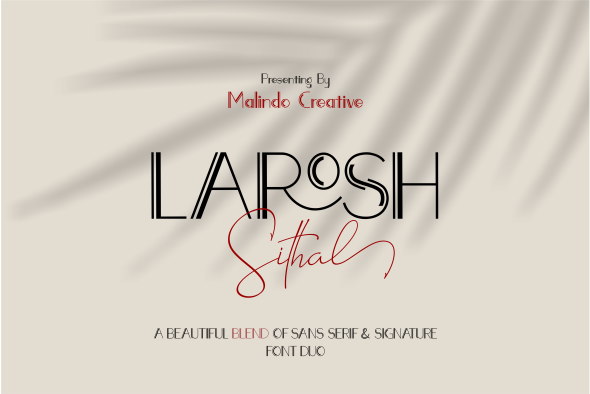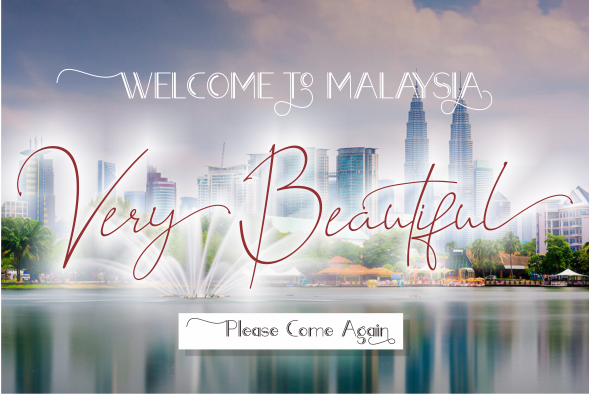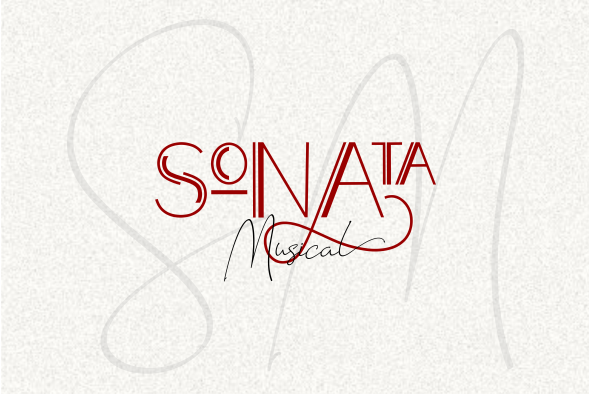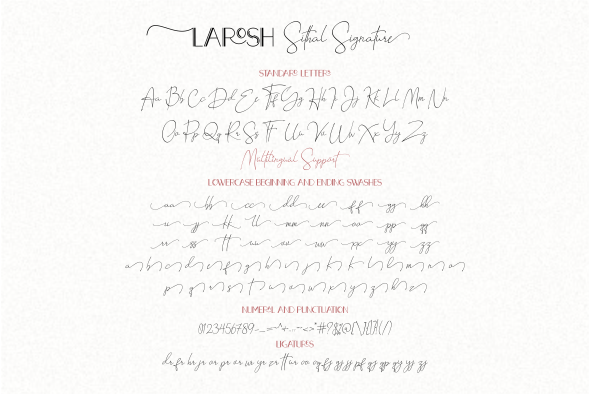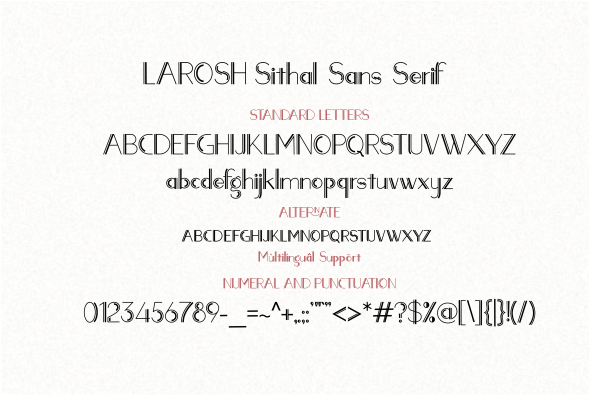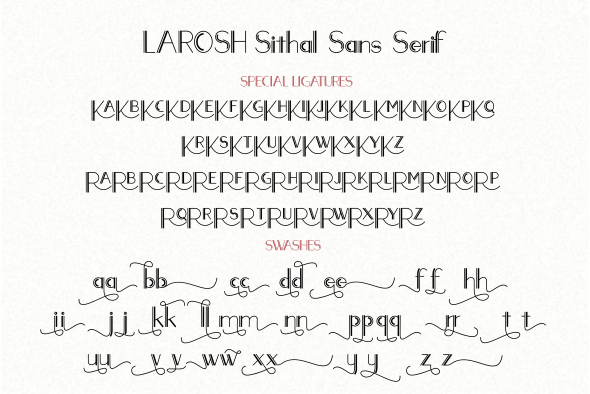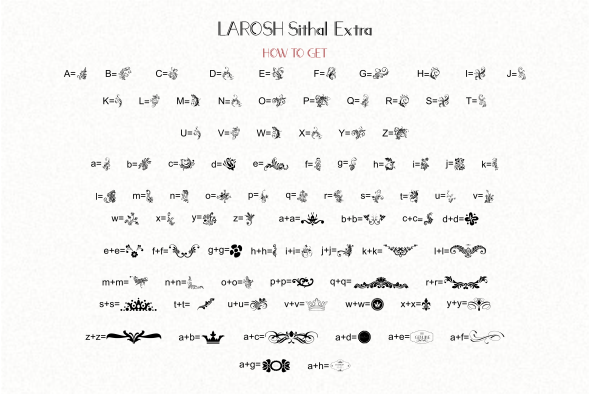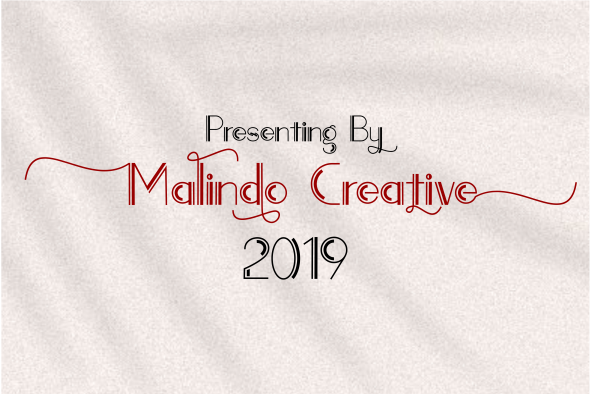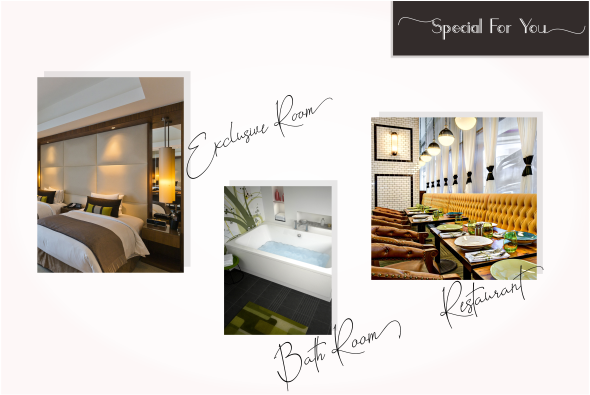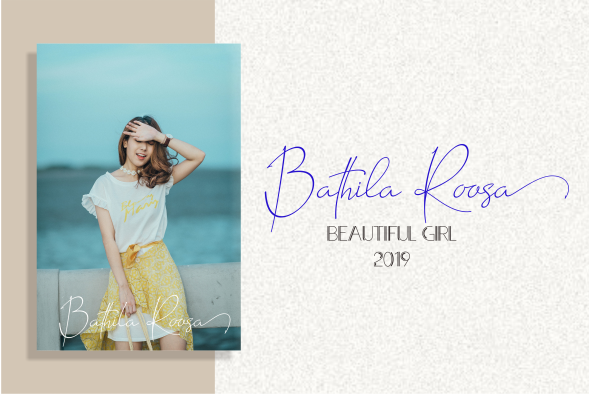
Introducing, LAROSH Sithal is a FONT DUO of Sans Serif and Signature,with a blend of two types of fonts, making your design look very beautiful,it is suitable for all types of printing, clothing, invitations, mugs, books, business cards,etc.
The Features includes:Alternates, Swashes, Ligatures, Stylistic Set,Bonus Ornament,You can pick the alternate for all style.